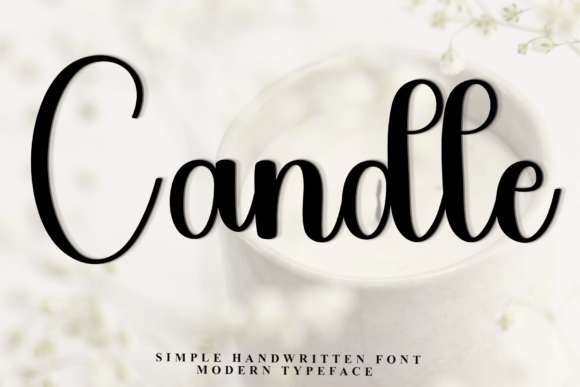
Candle Font: A Soft and Unique Touch for Your Designs
The Candle font is a beautiful and eye-catching typeface designed with a soft, unique touch. Its distinctive strokes give it a special character, making it meaningful and versatile for future use. With various characters, it’s perfect for design projects, crafts, and other creative works. In this article, we will explore the features and benefits of the Candle font, and how it can enhance your designs.
What is Candle Font?
Candle font is a natural font style that has been designed to give a soft and unique touch to your designs. Its distinctive strokes and characters make it stand out from other fonts, making it perfect for a wide range of creative projects. The font is compatible with various applications, including Windows and open-source platforms, making it easily accessible for designers and artists.
Features of Candle Font
The Candle font has several features that make it a popular choice among designers and artists. Some of its key features include:
- Soft and Unique Touch: The Candle font has a soft and unique touch that gives it a distinctive look. Its strokes are gentle and smooth, making it perfect for designs that require a subtle touch.
- Distinctive Strokes: The font has distinctive strokes that give it a special character. Its strokes are carefully designed to make it stand out from other fonts.
- Versatile: The Candle font is versatile and can be used for a wide range of creative projects, including design projects, crafts, and other artistic works.
Benefits of Using Candle Font
The Candle font has several benefits that make it a popular choice among designers and artists. Some of its key benefits include:
- Enhances Designs: The Candle font can enhance your designs, making them appealing to many audiences across different artistic and creative fields.
- Increases Creativity: The font’s unique and soft touch can increase creativity and inspire designers and artists to create new and innovative designs.
- Perfect for Various Projects: The Candle font is perfect for various projects, including design projects, crafts, and other creative works.
Use Cases for Candle Font
The Candle font can be used for a wide range of creative projects, including:
- Design Projects: The font is perfect for design projects, including brochures, posters, and business cards.
- Crafts: The Candle font can be used for crafts, including handmade cards, gift tags, and other paper crafts.
- Artistic Works: The font is perfect for artistic works, including illustrations, paintings, and other creative projects.
- Digital Products: The Candle font can be used for digital products, including e-books, digital art, and other digital creations.
In conclusion, the Candle font is a beautiful and eye-catching typeface designed with a soft, unique touch. Its distinctive strokes give it a special character, making it meaningful and versatile for future use. With various characters, it’s perfect for design projects, crafts, and other creative works. Compatible with various applications, including Windows and open-source platforms, this natural font style is ideal for a wide range of products. It will enhance your designs, making them appealing to many audiences across different artistic and creative fields.